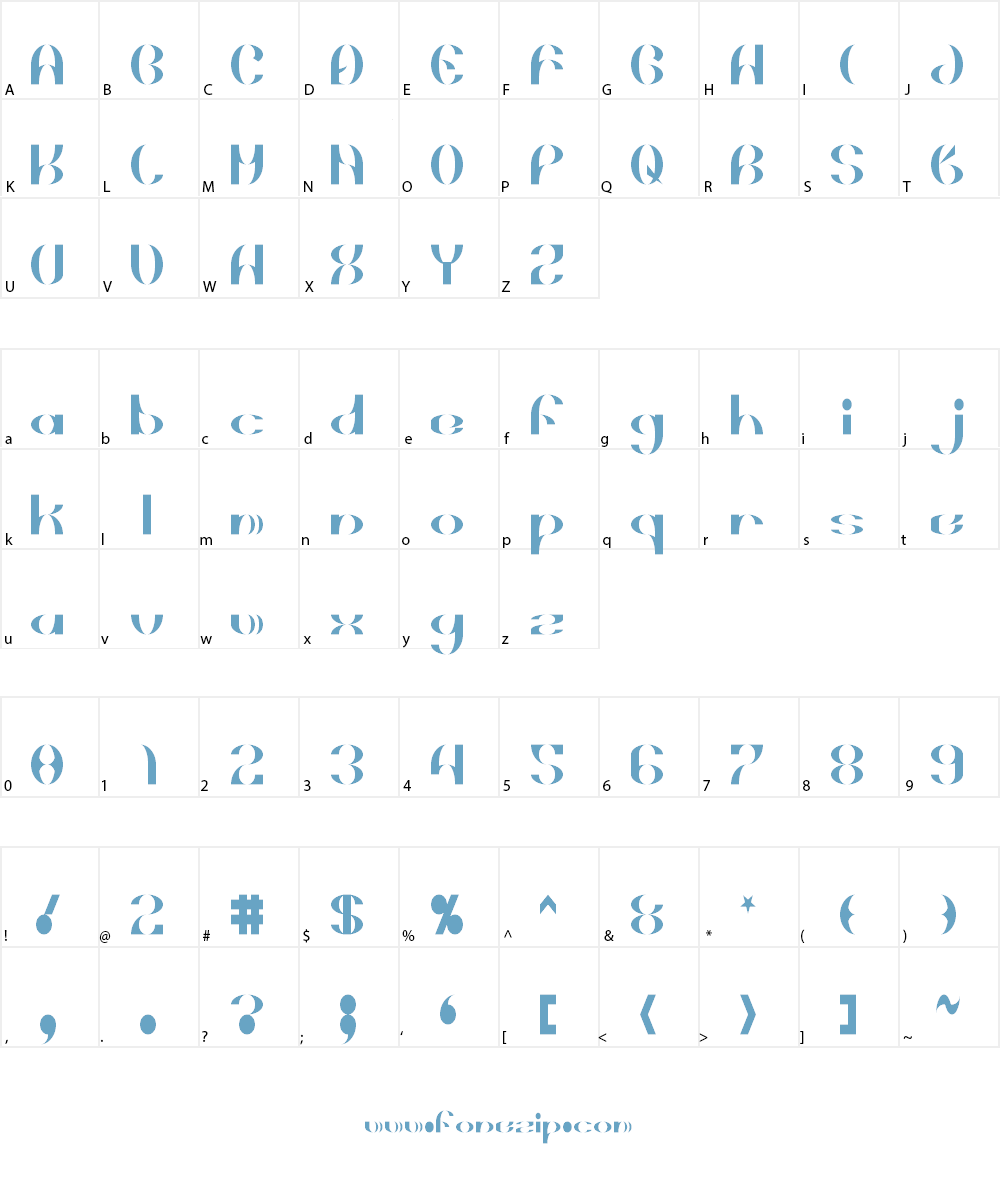
A pseudostencil style which is made to be very small! It supports several languages, though the uppercase lacks diacritics due to the size limitations.